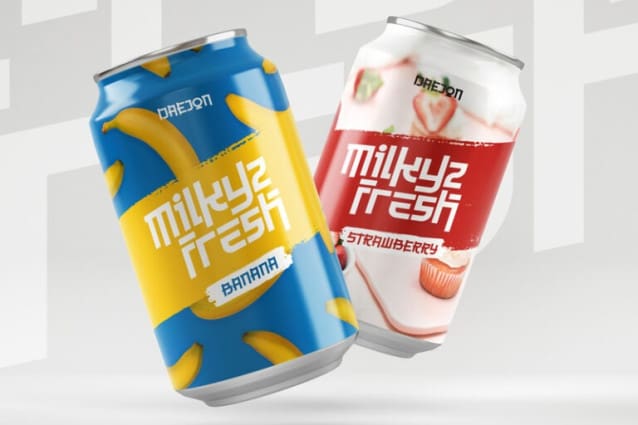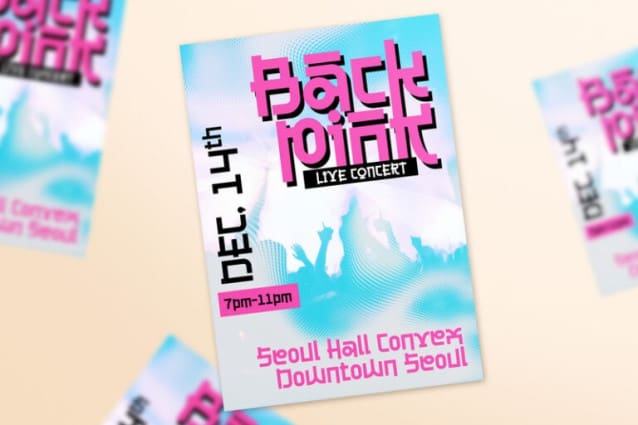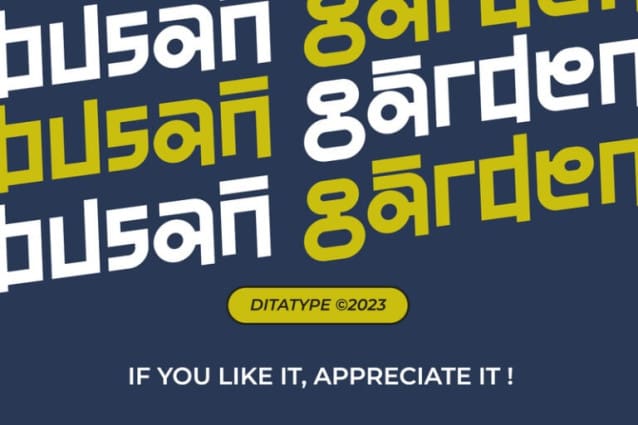
Busan Garden Font
Busan Garden Font is a bold display font that brings the spirit of Busan to life. Inspired by the vibrancy of Korean aesthetics, this font exudes strength and cultural richness, making it a captivating choice for designs that demand a powerful and impactful presence.
The characters in Busan Garden stand tall with a robust and thick weight, portraying a sense of confidence and solidity. The sturdy letterforms, characterized by sharp angles, create a visually striking appearance that captures the dynamic energy found in Korean design. Busan Garden is not just a font; it’s a visual journey through the streets of Busan.